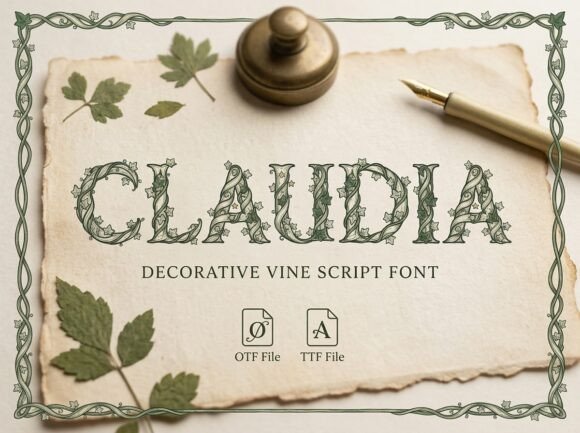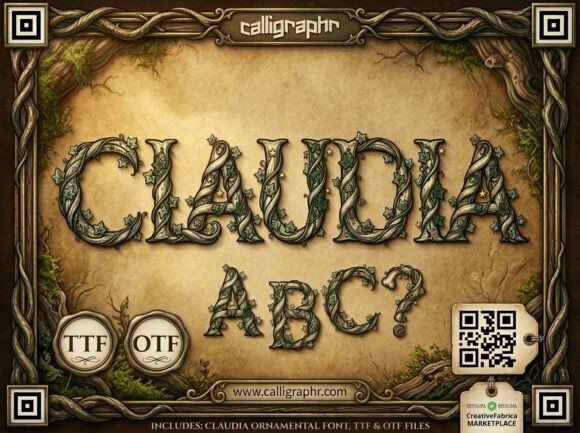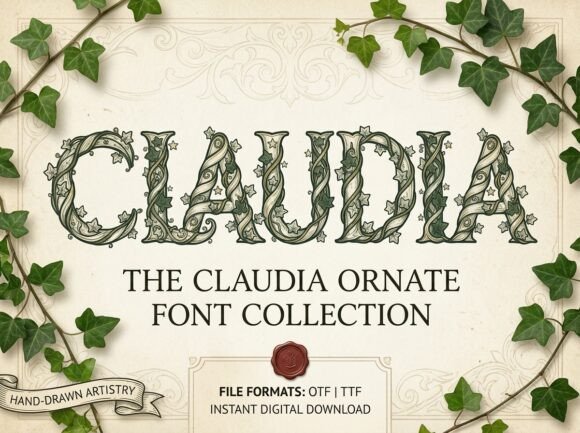
Introducing Claudia: The Intricate Botanical Calligraphy Font
Imagine a world where the alphabet comes alive, woven with delicate vines, leaves, and spiraling tendrils that transport you to a lush garden of visual wonder. Welcome to Claudia, a premium font that reimagines the art of typography as a living, breathing entity. This intricate botanical script is the perfect addition to any design project that celebrates the beauty and complexity of nature.
The Inspiration Behind Claudia
Claudia’s design is rooted in the concept of visual storytelling, where every letterform is carefully crafted to evoke the organic, whimsical feel of a sketchbook. The font’s fine-line aesthetic provides a custom-lettered feel that is both intimate and magically detailed, making it perfect for projects that require a touch of elegance and sophistication.
Key Features of Claudia
- Intricate Botanical Design: Every letterform in Claudia is composed of woven vines, delicate leaves, and spiraling tendrils, creating a unique and captivating visual identity.
- Fine-Line Aesthetic: Claudia’s fine-line design provides a custom-lettered feel that is both intimate and detailed, perfect for projects that require a touch of elegance.
- Botanical Accuracy: The font’s botanical elements are carefully crafted to ensure accuracy and attention to detail, making it perfect for nature-themed projects.
- Versatile: Claudia is suitable for a wide range of design projects, from book covers to branding, menus, and fine art gallery titles.
Best Use Cases for Claudia
Claudia is a versatile font that can be used in a variety of design projects, including:
- Nature-Themed Book Covers: Claudia’s intricate botanical design makes it perfect for book covers that celebrate the natural world, such as gardening books, nature guides, and environmental literature.
- Organic Skincare Branding: The font’s organic, natural feel makes it an excellent choice for organic skincare branding, packaging, and marketing materials.
- Garden-to-Table Menus: Claudia’s whimsical, hand-crafted feel makes it perfect for garden-to-table menus, food blogs, and restaurant branding.
- Fine Art Gallery Titles: The font’s elegant, sophisticated design makes it suitable for fine art gallery titles, exhibition catalogs, and artist portfolios.
Tips for Using Claudia Effectively
To get the most out of Claudia, here are some tips for using the font effectively:
- Pair with Neutral Backgrounds: Claudia’s intricate design works best on neutral backgrounds, allowing the font to take center stage.
- Experiment with Colors: The font’s fine-line design allows for a range of color options, from earthy tones to bold, bright hues.
- Use for Headlines and Titles: Claudia’s elegant design makes it perfect for headlines and titles, adding a touch of sophistication to any design project.
Claudia is a unique and captivating font that brings the beauty of nature to the world of typography. With its intricate botanical design, fine-line aesthetic, and versatile use cases, Claudia is the perfect addition to any design project that celebrates the natural world. Whether you’re a designer, craft, or artist, Claudia is sure to inspire and elevate your work.